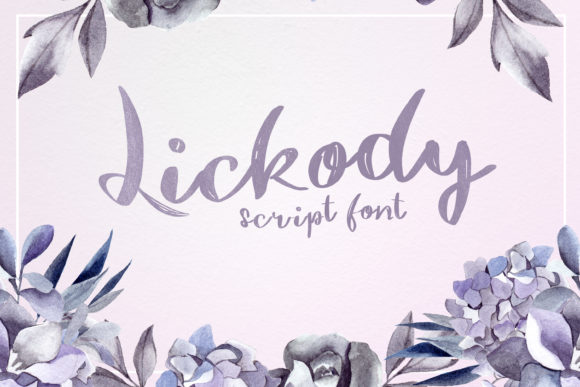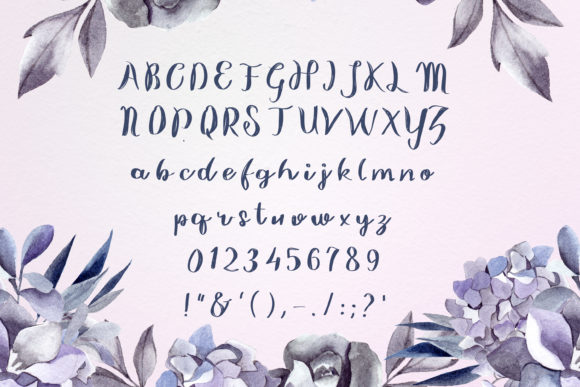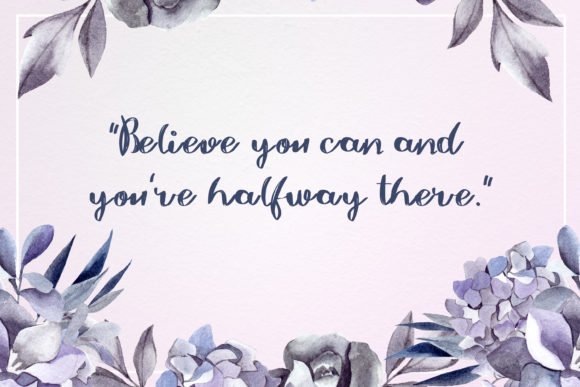
Lickody Font
About Lickody Font
Lickody is a cute and quirky handwritten font. Its simple style makes this font incredibly versatile. Add it to your creative ideas and notice how well it matches them!